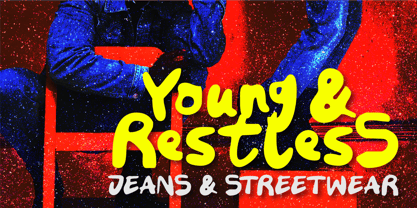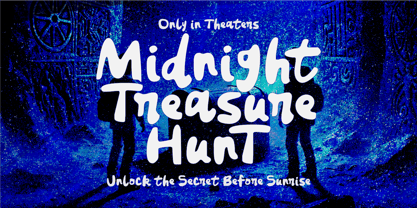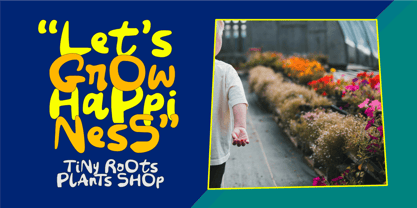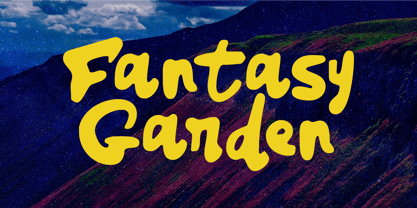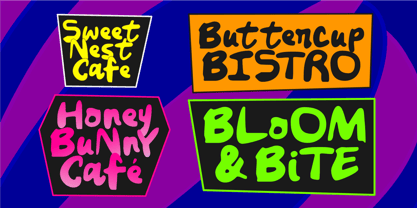
Fantasy Garden
by Epiclinez
The Fantasy Garden Font Family was designed by Aldy Sidik and published by Epiclinez. Fantasy Garden contains 1 styles.
Fantasy Garden is a bold and playful script font inspired by nature and a dreamy, whimsical vibe. The letters flow smoothly with a hand-drawn feel, making it look friendly, lively, and easy to love.
It’s perfect for logos, headlines, product branding, packaging, and posters—anything that needs to stand out while still feeling soft and creative. The style feels like vines growing and petals opening, giving your design a fresh and charming look.
Whether you’re working on a beauty brand, kids project, or anything nature-inspired, Fantasy Garden helps your design feel warm, fun, and full of life.